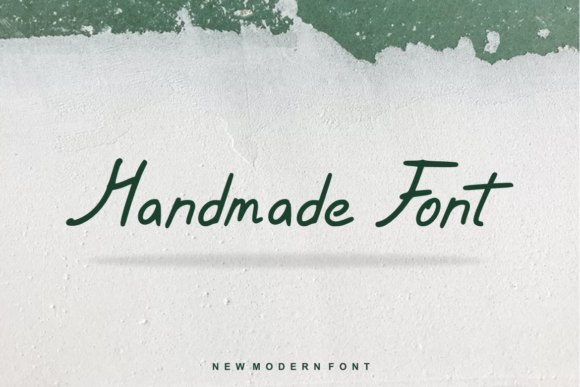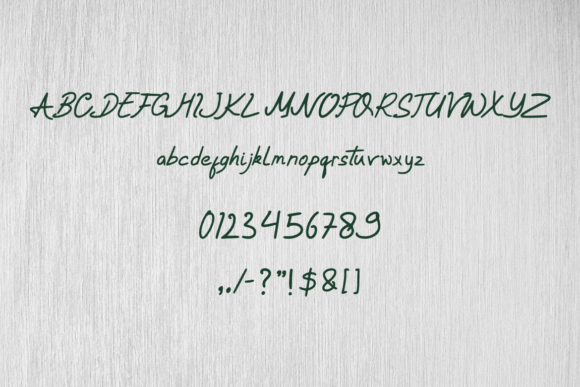
About Mattelost Font
“Mattelost” is a superb handwritten font crafted to make your work stand out with its elegant and curvy lines. Versatile and well-suited for a variety of applications, this font is perfect for product packaging, branding projects, magazine covers, social media content, weddings, or any project where you want to express words above the background with a touch of sophistication.
The elegance of “Mattelost” shines through its meticulously designed and curvy lines. The font’s handwritten style brings a sense of personalization and artistic flair to your designs, making it a standout choice for projects that require both refinement and creativity.
In product packaging, “Mattelost” enhances the overall presentation of your products. The superb lines of the font contribute to a sophisticated and visually appealing packaging design, making it particularly suitable for brands aiming for a high-end and memorable image.
For branding projects, the font becomes a key element in creating a distinctive and elegant brand identity. Its curvy lines add a touch of artistic charm, ensuring that your brand stands out with a sense of creativity and sophistication.
Magazine covers benefit from the stylish and eye-catching nature of “Mattelost.” The font’s handwritten elegance becomes a focal point, elevating headlines and cover lines with a unique blend of personality and charm.
In the realm of social media, “Mattelost” proves to be a versatile tool for creating engaging and visually appealing posts. Its elegant lines and handwritten style lend an authentic touch, allowing your content to stand out on various platforms.
Whether used for weddings, invitations, or other special occasions, “Mattelost” brings a level of sophistication to your designs. Its superb lines contribute to a refined and memorable atmosphere, creating a lasting impression for significant events.
In summary, “Mattelost” is a superb handwritten font designed to infuse elegance with curvy lines. Its versatility makes it suitable for a variety of design applications, allowing you to express words above the background with style and sophistication. Whether you’re working on product packaging, branding, magazine covers, social media content, weddings, or other projects, let “Mattelost” be the font that elevates your designs with its elegant and captivating presence.